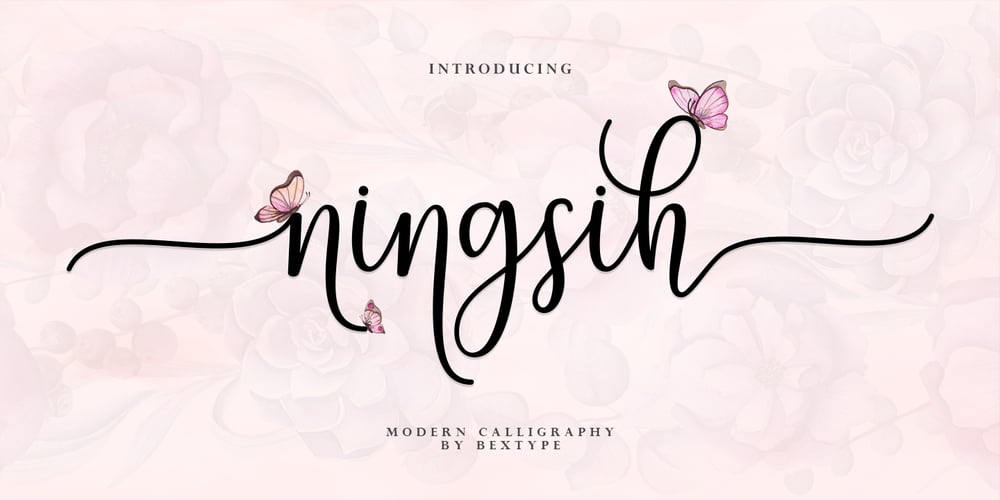
Ningsih Script Font Family was designed by Syahputra and published by Bexxtype. Ningsih Script contains 1 styles and family package options. Hello! This font is a challenge from my future wife. Ningsih Script a new fresh & modern script with a handmade calligraphy style, decorative characters and a dancing baseline! So beautiful on invitation like greeting cards, branding materials, business cards, quotes, posters, and more!! Ningsih Script come with 520 glyphs. The alternative characters were divided into several Open Type features such as Swash, Stylistic Sets, Stylistic Alternates, Contextual Alternates. The Open Type features can be accessed by using Open Type savvy programs such as Adobe Illustrator, Adobe InDesign, Adobe Photoshop Corel Draw X version, And Microsoft Word. And this Font has given PUA unicode (specially coded fonts). so that all the alternate characters can easily be accessed in full by a craftsman or designer. Foreign Languages Support: ÀÁÂÃÄÅÇÈÉÊËÌÍÎÏÐÑÒÓÔÕÖØÙÚÛÜÝßàáâãäåæçèéêëìíîïðñòóôõöøùúûüýÿ Ningsih Script : Uppercase & Lowercase International Languange & Symbols Support Punctuation & Number PUA Unicode Range Standard Stylistic Alternates Stylistic Set 1-21 Character Variant Contextual. If you don’t have a program that supports OpenType features such as Adobe Illustrator and CorelDraw X Versions, you can access all the alternate glyphs using Font Book (Mac) or Character Map Windows). If you have any question, don’t hesitate to contact me by email bexxtype@gmail.com Thanks and happy designing 🙂 Thank You for purchase!